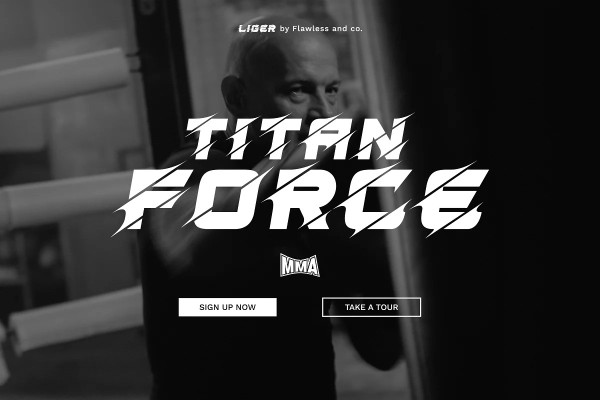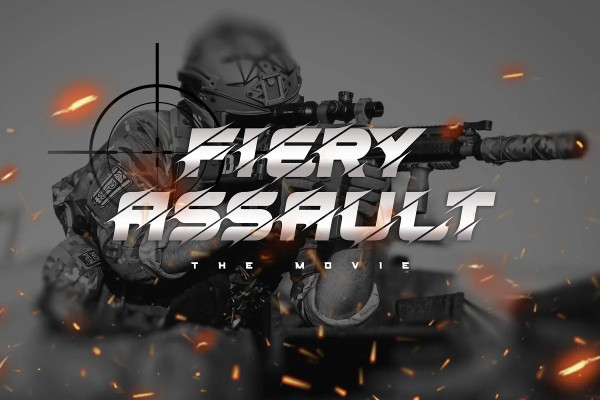
Liger Font
Liger Font is sport display font, Modern Font with Elegant Style suitable for branding, business, logos, magazines, and others
Classification: Display Fonts, Stencil Fonts